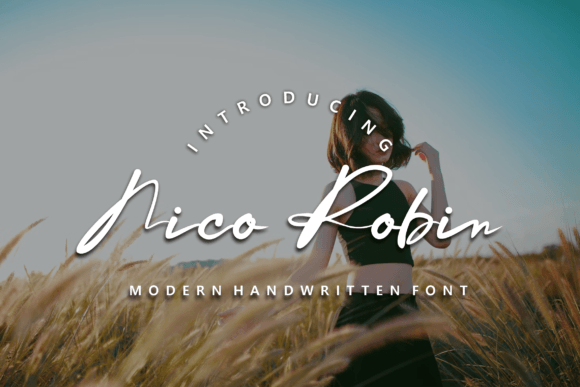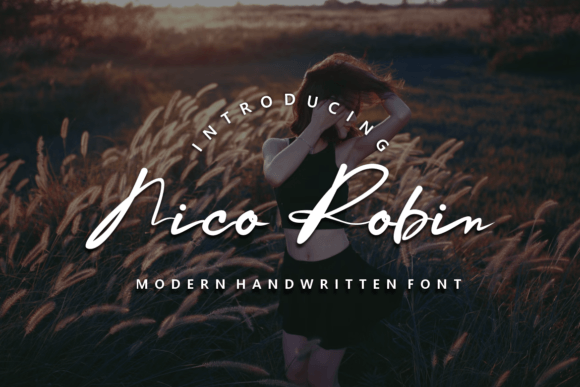
About Nico Robin Font
“Nico Robin” is not just a font; it’s a slim and exquisite handwritten typeface designed to add a touch of style, grace, and flow to your creations. With its elegant qualities, this font has the power to elevate the look of your designs, striking a balance between sophistication and a natural, grounded feel.
Imagine “Nico Robin” gracing your projects with its slim and graceful strokes, bringing a sense of refinement to your text. Whether you’re working on invitations, branding materials, or any creative endeavor, this font is crafted to enhance the visual appeal of your creations.
Envision “Nico Robin” becoming an essential part of your design toolkit, contributing to projects that require a blend of style and natural beauty. The slim and exquisite handwritten style adds a personalized touch, making your text stand out with a unique and sophisticated flair.
For projects that demand an elegant and flowing script, “Nico Robin” stands out as a font that delivers both style and grace. Its slim design brings a modern and refined aesthetic, suitable for a variety of applications.
In any context that requires a slim and exquisite handwritten font, “Nico Robin” is the typeface that brings sophistication to the forefront. Let it be the key element that transforms your designs, making them more visually appealing and refined.
Whether you’re working on digital or print designs, “Nico Robin” is a font that brings a touch of elegance and grace. Let it be the font that adds that special sophistication to your invitations, branding, and various other creative projects.
Let “Nico Robin” be the font that infuses your designs with slim, exquisite handwritten beauty, turning them into visually striking and refined expressions. Embrace its elegance, and watch it bring a new level of sophistication to your creative endeavors.